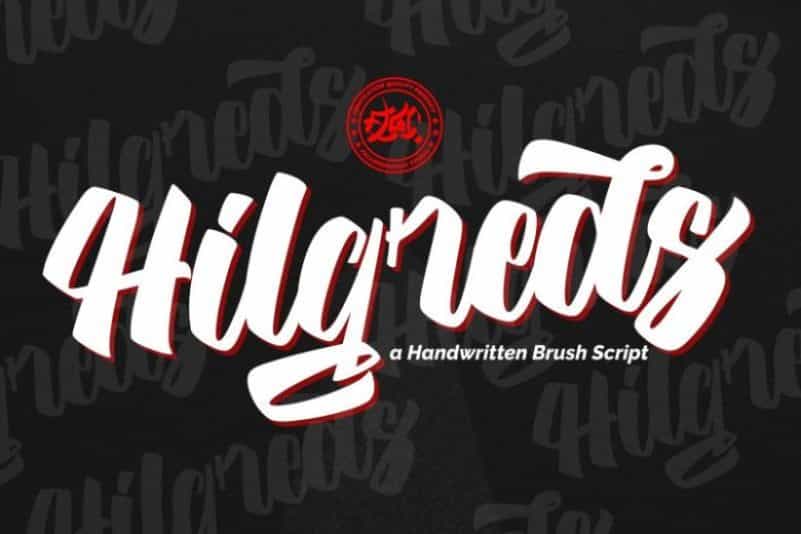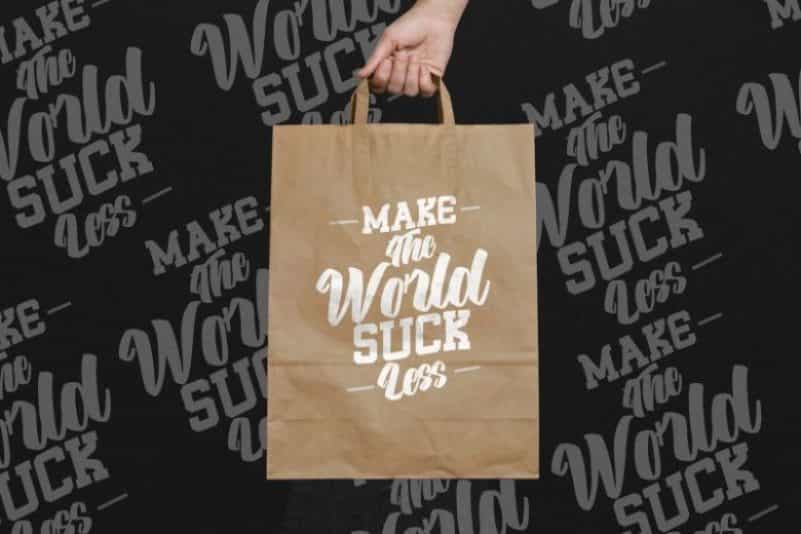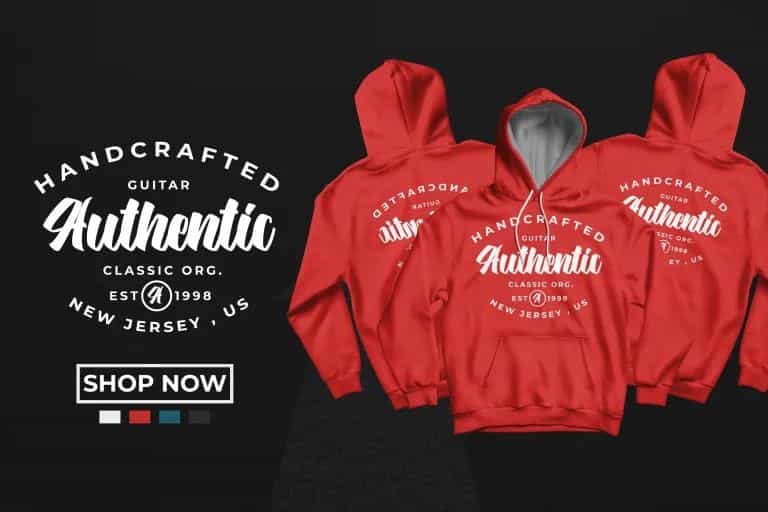
The Hilgreds Font is an impressive script that is envy of the smell crowd. This typeface is ideal for the development of horror, action and rock designs. It’s an awesome script font . Made with naturally handwritten.